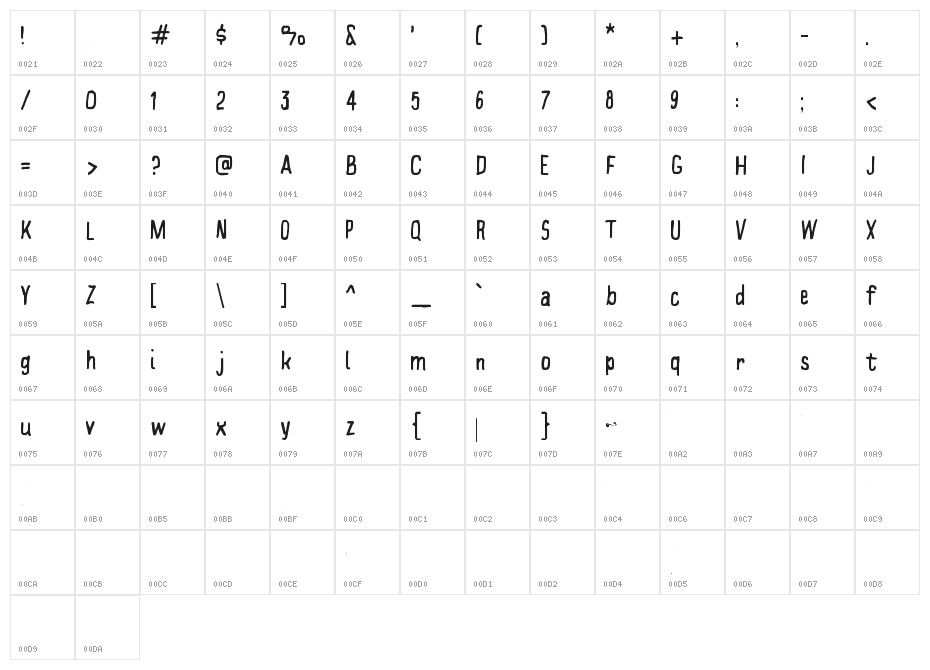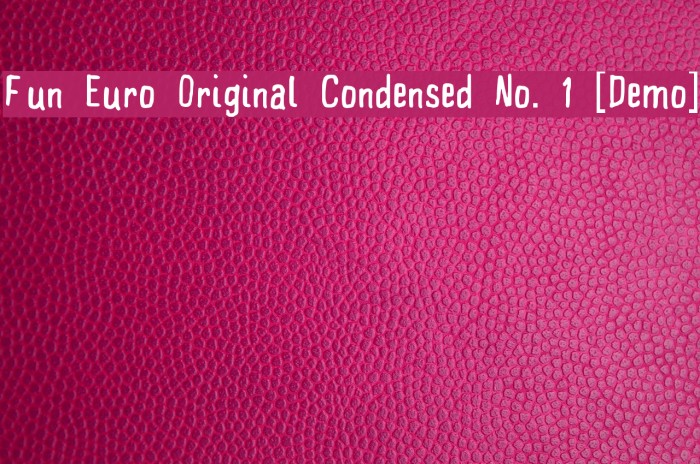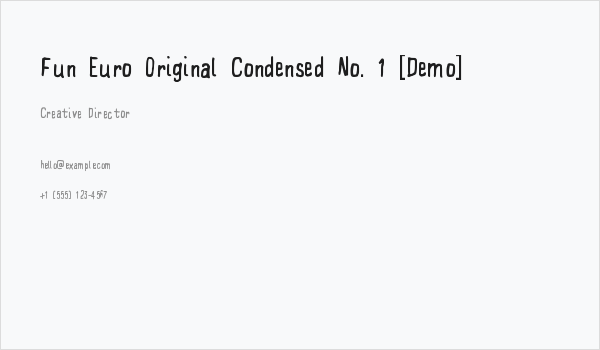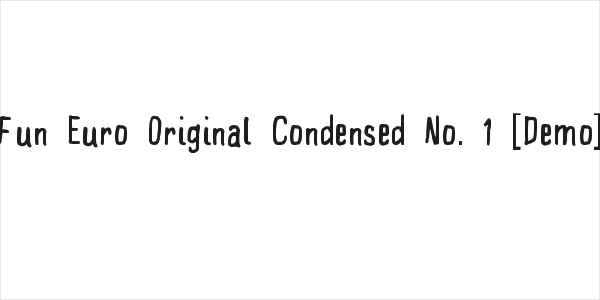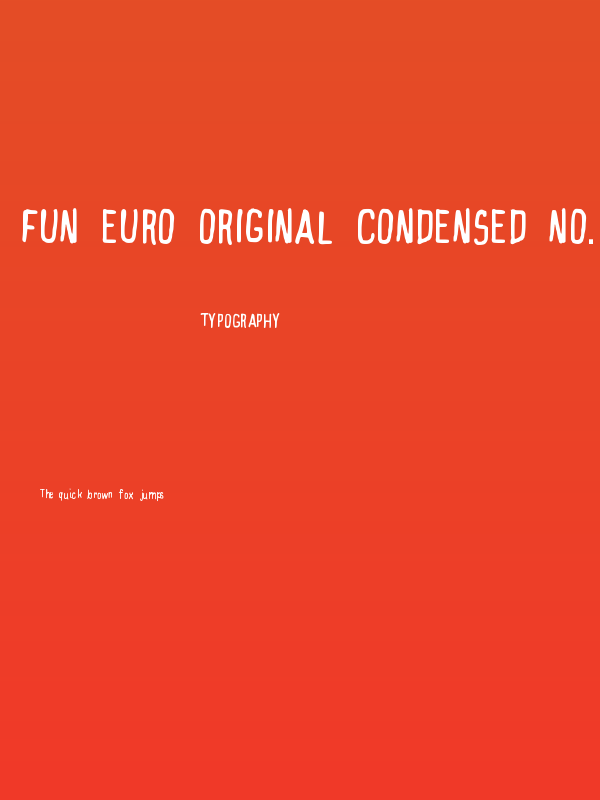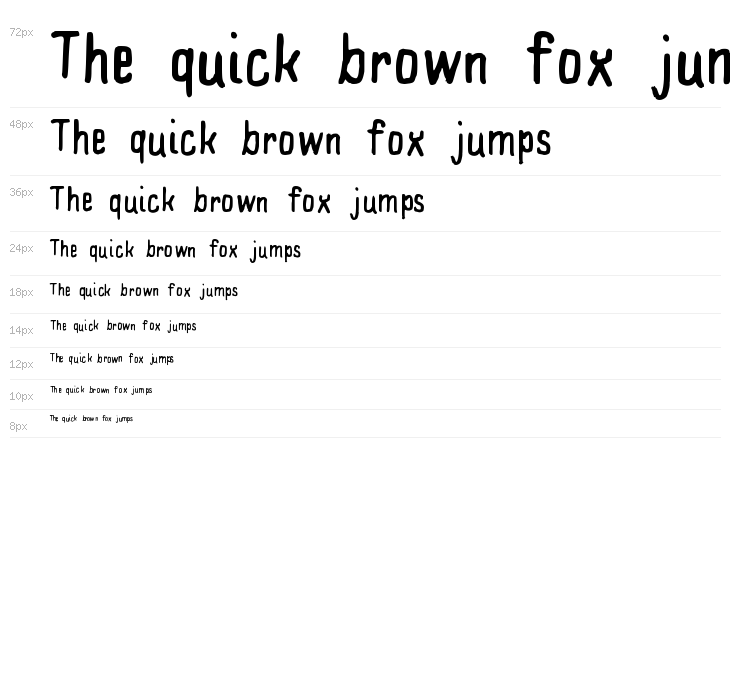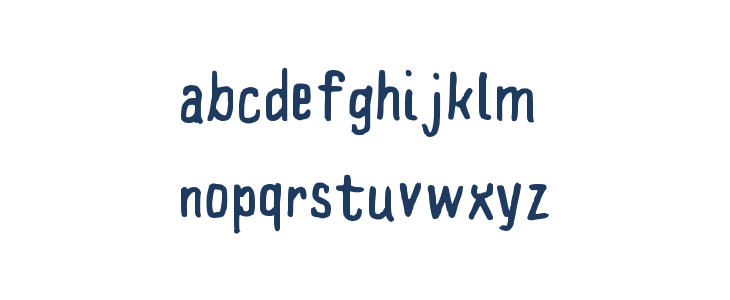
Fun Euro Original Condensed No. 1 [Demo] Font
Fun Euro Original Condensed No. 1 [Demo] Description
This font features a playful and informal style with a hand-drawn appearance. The characters are slightly condensed, giving it a compact look while maintaining readability. The strokes are uneven, adding to its casual and whimsical feel. The uppercase and lowercase letters are well-balanced, and the numerals are clear and distinct. Special characters are creatively designed, enhancing the font's unique personality. This font is suitable for projects that require a fun and approachable aesthetic.